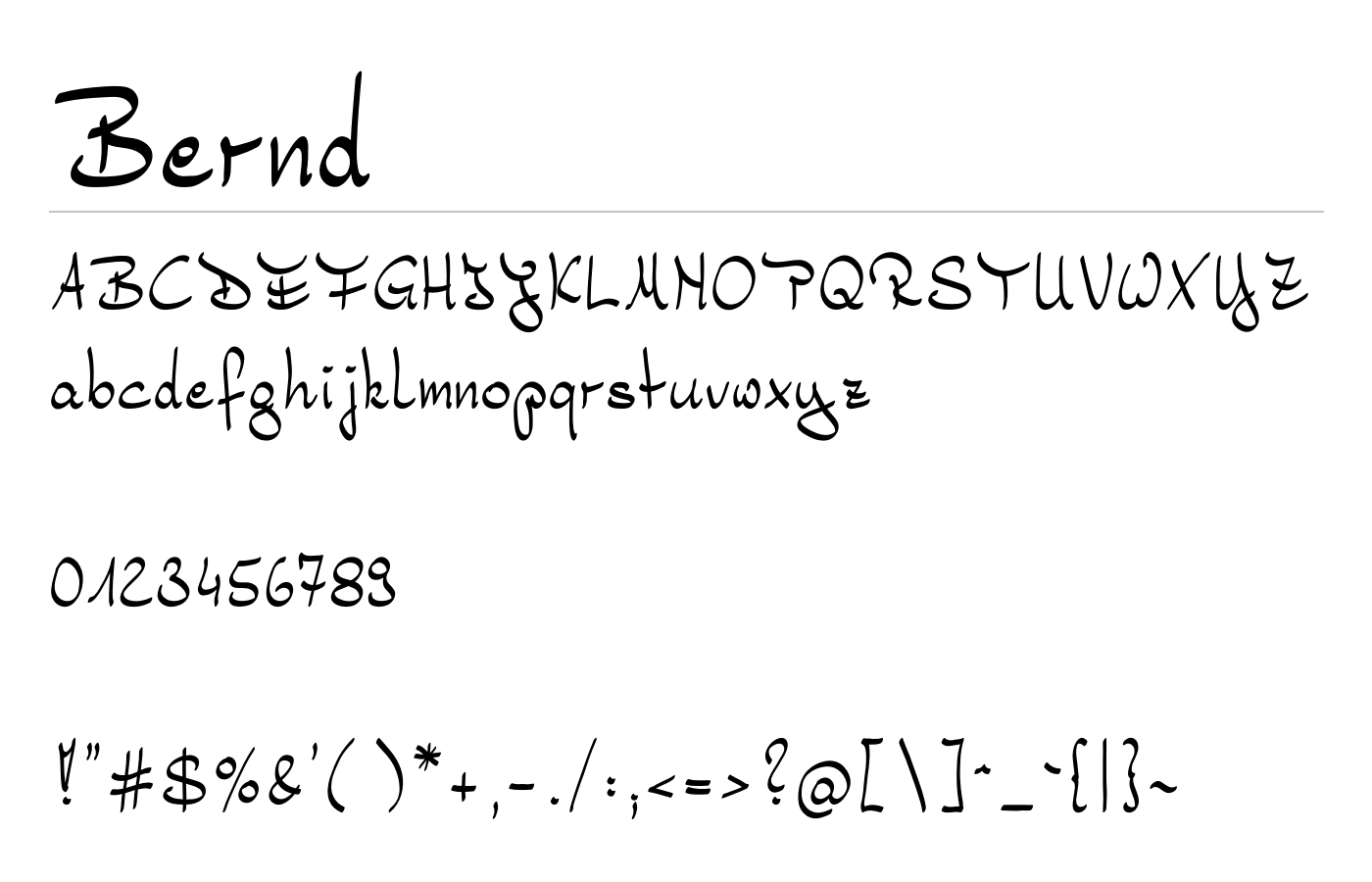
Bernd is a whimsical handwritten font with a playful and artistic feel, characterized by its irregular, flowing strokes and informal charm. It features a light to regular weight and tall x-height, enhancing readability while maintaining a casual, creative vibe, making it ideal for projects that seek a personal or quirky touch. This font works well for invitations, greeting cards, branding for creative businesses, and other designs where a friendly, approachable style is desired.
Bernd Font
About Bernd Font